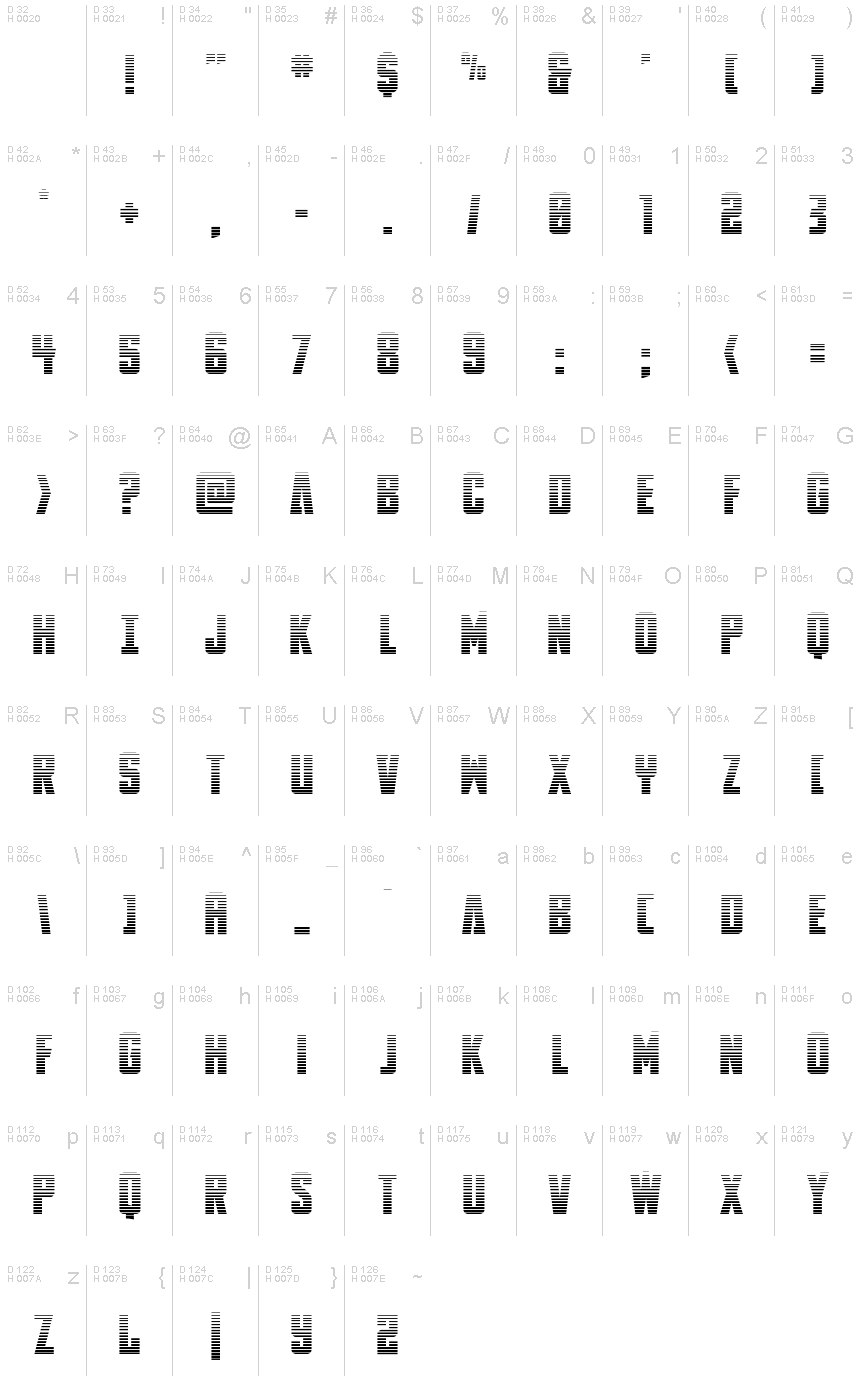
DiaClone Gradient
DiaClone Gradient emerges from the DiaClone family as a bold statement in the techno realm, designed by Iconian Fonts. Its striking gradient texture adds depth and dimension, creating an illusion of illumination that seems to leap off the page. This condensed font boasts a confident presence, with its solid structure lending a futuristic edge perfect for grabbing attention.
Ideal for headlines, branding, and any project demanding a modern touch with impact, DiaClone Gradient stands out in posters, game interfaces, and electronic event promotions. Its distinctive style ensures that any message it carries is delivered with a visually captivating punch.